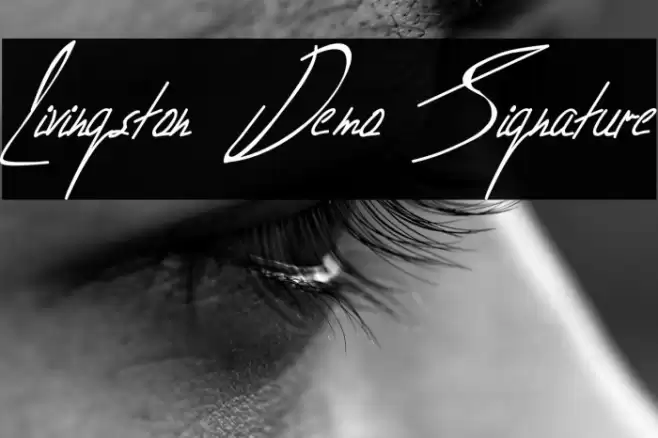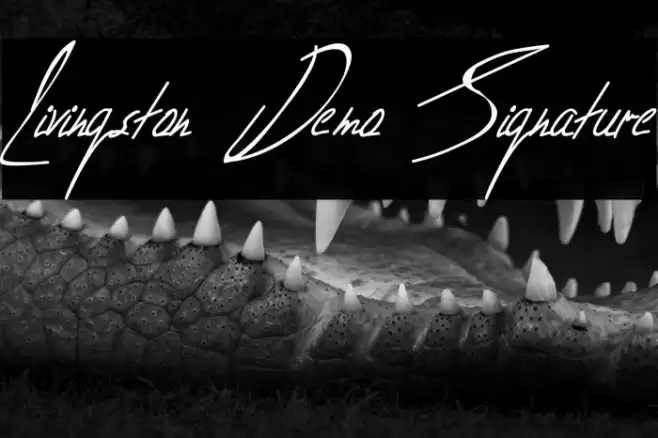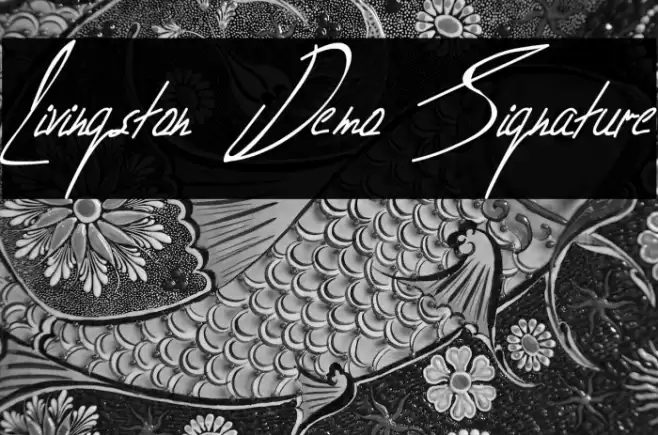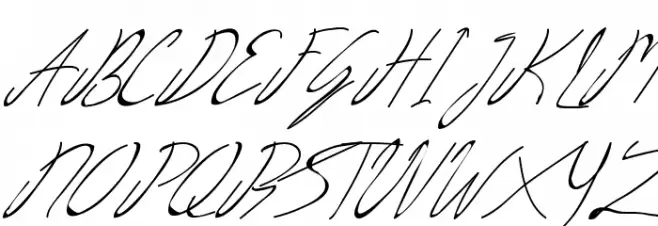
Livingston Demo Signature Font
Livingston Demo Signature Description
This font exudes a sophisticated and elegant handwritten style, characterized by its fluid and continuous strokes. The letters are gracefully connected, creating a seamless flow that mimics natural handwriting. The uppercase letters are slightly more pronounced, with a subtle slant that adds a dynamic feel. The lowercase letters maintain a consistent rhythm, enhancing readability while preserving the artistic flair. The overall appearance is both stylish and personal, making it ideal for projects that require a touch of class and individuality. The font's unique character is further emphasized by its delicate curves and loops, which add a sense of movement and life to the text.
A sophisticated, elegant handwritten font with fluid, continuous strokes from Regular fonts.
- Proposed Projects: Ideal for wedding invitations, personal branding, signature logos, and elegant stationery.
- Character Spacing: Tight
- Overall Style: Elegant
- Use Case: Logos, Invitations, Personal Branding